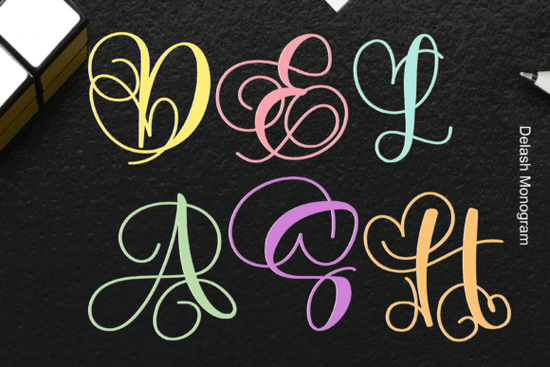
If you’ve been searching for a decorative font that feels personal, elegant, and just a little bit whimsical, Delash might be exactly what your next project needs. It’s especially well-suited for handmade-style designs think wedding invites with a vintage touch, boutique packaging, or heartfelt greeting cards that feel like they were written by hand.
What makes Delash stand out is how naturally it flows. The letterforms have subtle curves and delicate serifs that give it an authentic, almost calligraphic personality without being overly ornate. That balance makes it surprisingly versatile. You don’t need to pair it with ten other fonts to make it work; often, it shines best on its own or with a clean sans-serif for contrast.
Who should use this font?
This isn’t just another pretty typeface for designers who love aesthetics. If you’re running a small business that sells custom stationery, printable wall art, or personalized gifts, Delash adds charm without clutter. Print-on-demand sellers will find it works beautifully on mugs, tote bags, and journals especially when paired with floral illustrations or minimalist line art.
Crafters who make their own cards or scrapbook layouts also appreciate how readable it remains at smaller sizes. And if you manage social media for a boutique brand, try using Delash in quote graphics or seasonal promos. It photographs well and doesn’t lose detail when scaled down.
How does it compare to similar decorative fonts?
Not all monogram-style fonts are created equal. Some lean too heavily into scripty swirls and become hard to read. Others feel stiff and corporate despite trying to look “handmade.” Delash finds the sweet spot it’s decorative but not distracting.
If you’ve used something like the Doctor Font before, you’ll notice Delash has a softer, more romantic tone. Doctor Font carries a bolder, almost editorial vibe great for headlines or branding with authority. Delash? It whispers rather than shouts. Perfect for moments when you want warmth and intimacy in your design.
What kinds of projects work best with Delash?
- Wedding & event stationery Invitations, menus, place cards, and thank-you notes gain instant elegance.
- Social media templates Instagram carousels, Pinterest pins, or TikTok captions feel more curated and personal.
- Printable art Pair it with watercolor backgrounds or botanical borders for Etsy listings that sell.
- Small business branding Boutique logos, shop tags, or product labels get a handmade, artisanal lift.
- Greeting cards Birthdays, anniversaries, baby showers any occasion where emotion matters.
One tip: avoid using Delash for long paragraphs. It’s meant to be savored in short bursts names, taglines, quotes, or titles. Let it breathe with generous spacing and white space around it.
Any styling tips to make the most of it?
A few simple tricks go a long way:
- Use all caps sparingly Delash’s lowercase letters have more character.
- Try pairing it with a light, airy background textured paper scans or soft gradients enhance its charm.
- Add subtle drop shadows or outlines only if needed for contrast usually, it looks best untouched.
- For digital use, bump up the tracking (letter spacing) slightly to improve readability on screens.
And remember: because it’s monogram-inspired, initials or short words often look stunning centered with decorative elements surrounding them think laurels, ribbons, or tiny stars.
Fonts like Delash aren’t about following trends they’re about creating moments that feel human. Whether you’re designing for yourself or your customers, choosing a typeface with personality helps your work connect emotionally. That’s something algorithms can’t replicate.